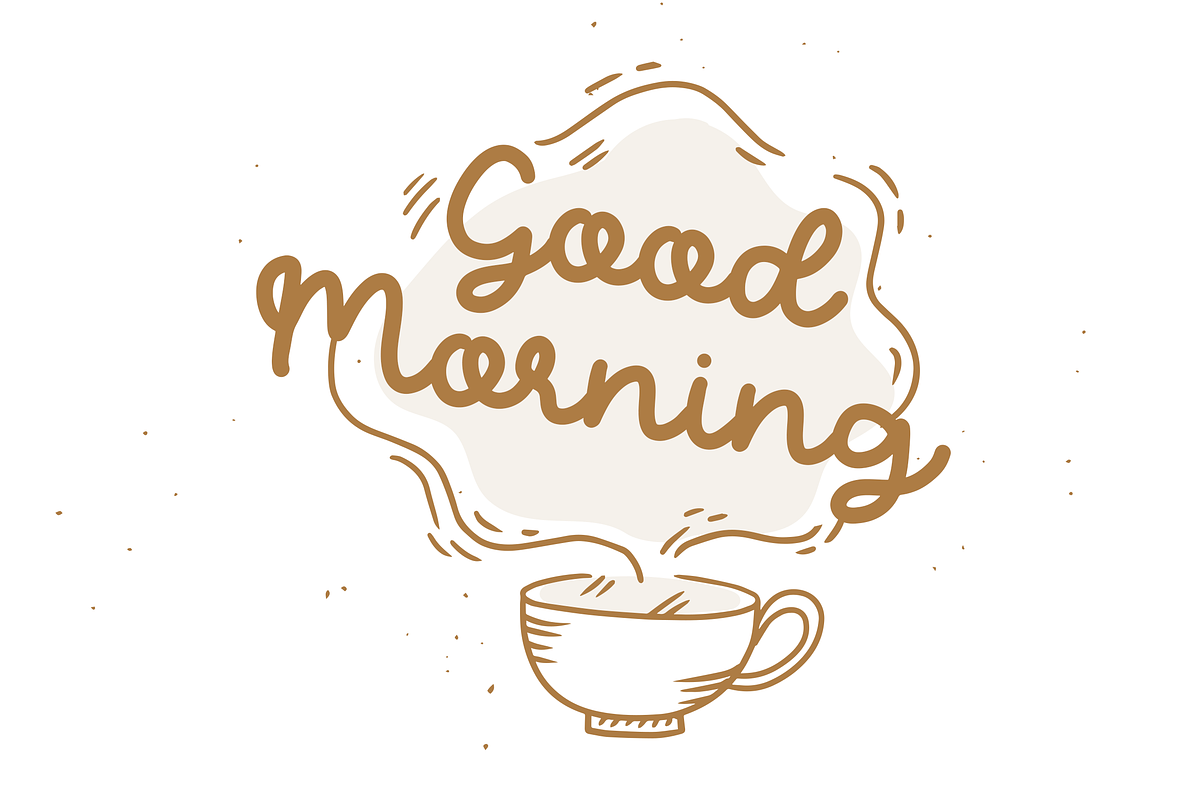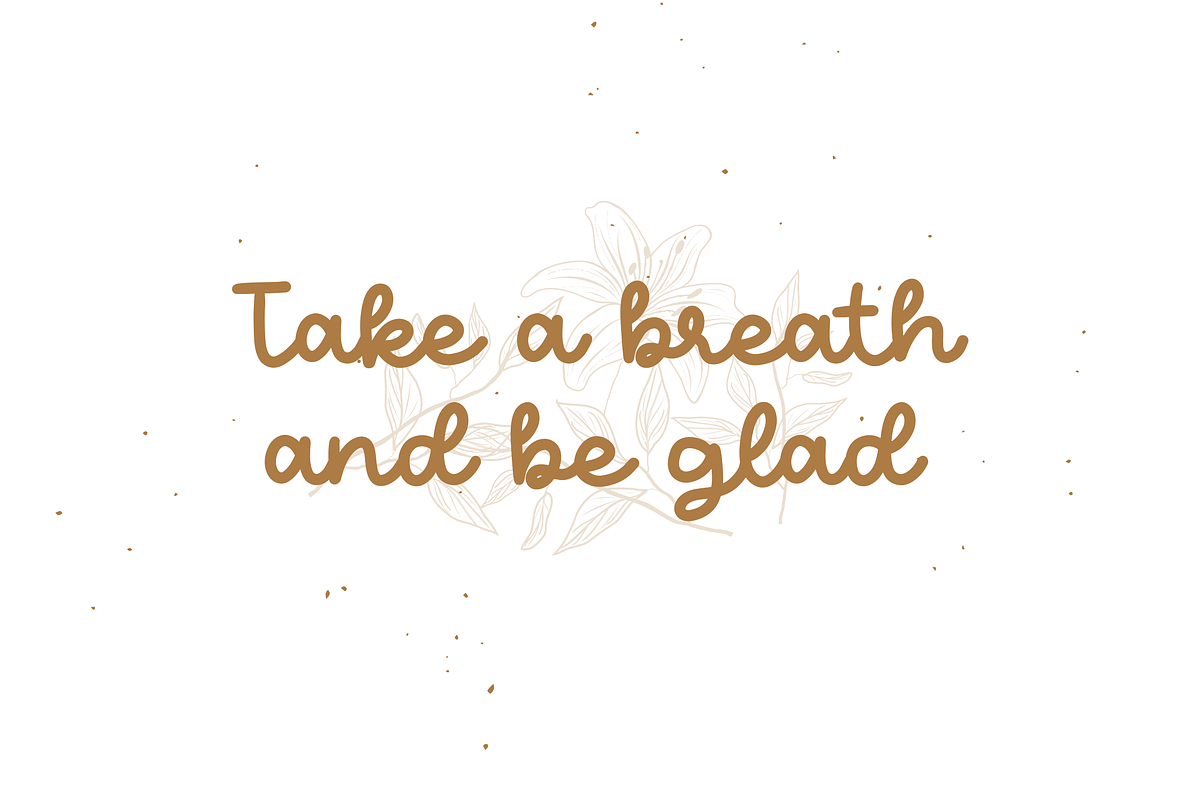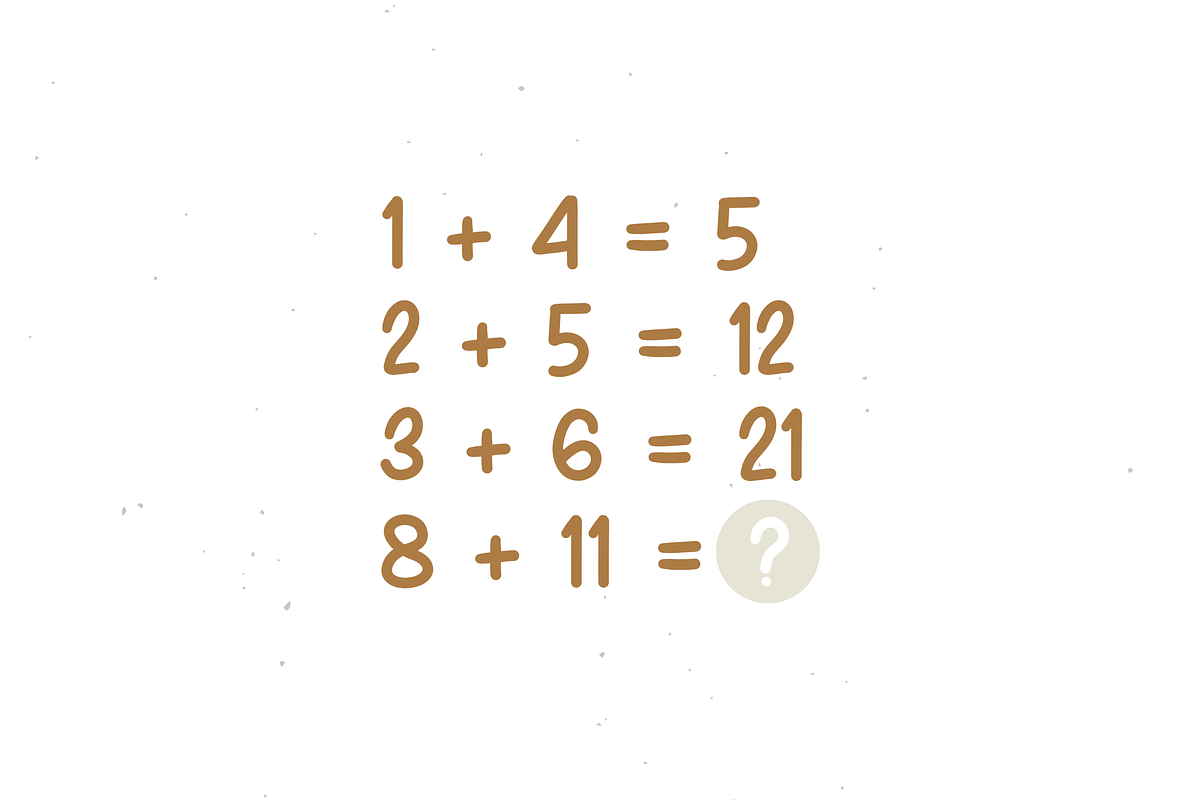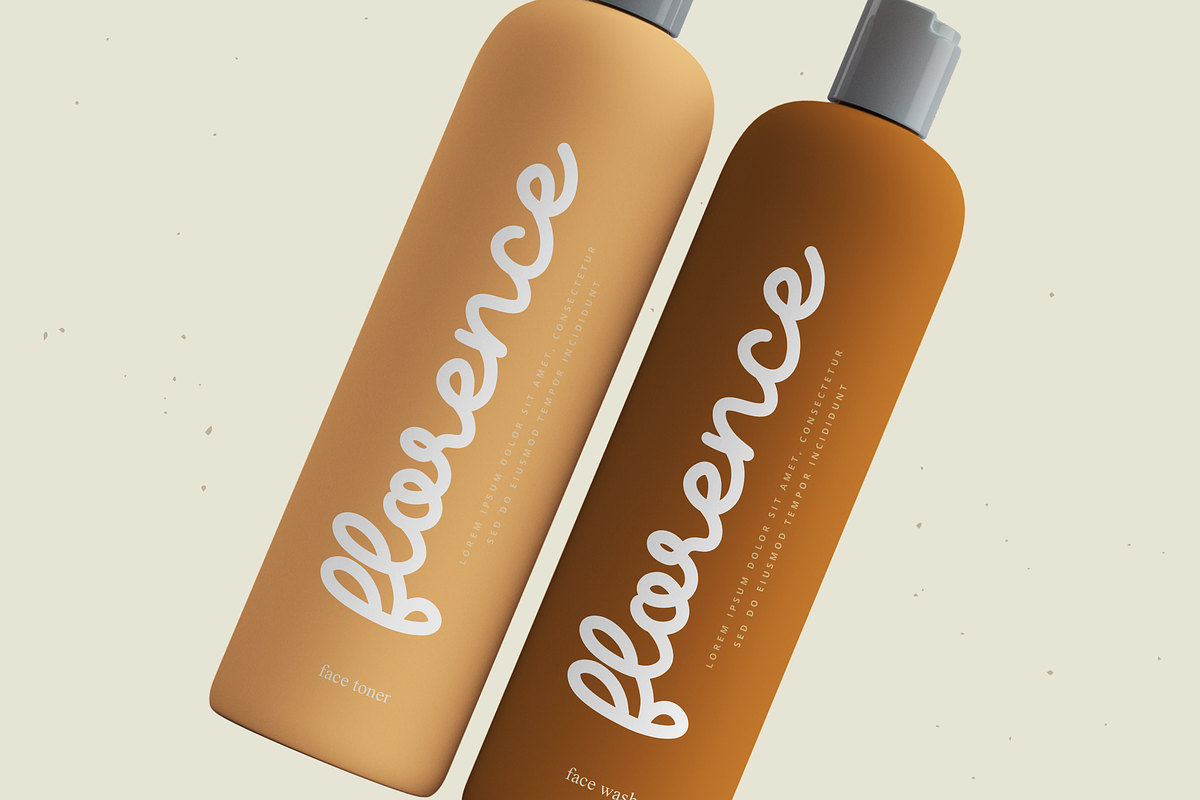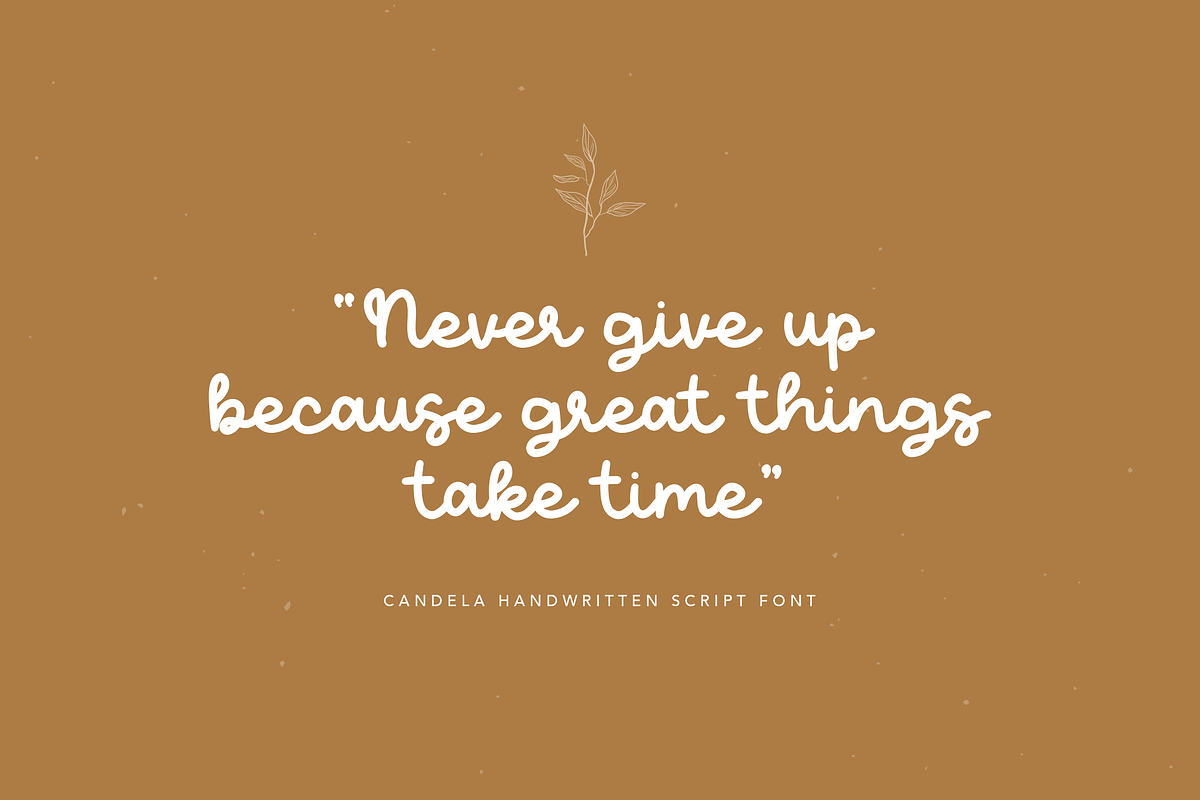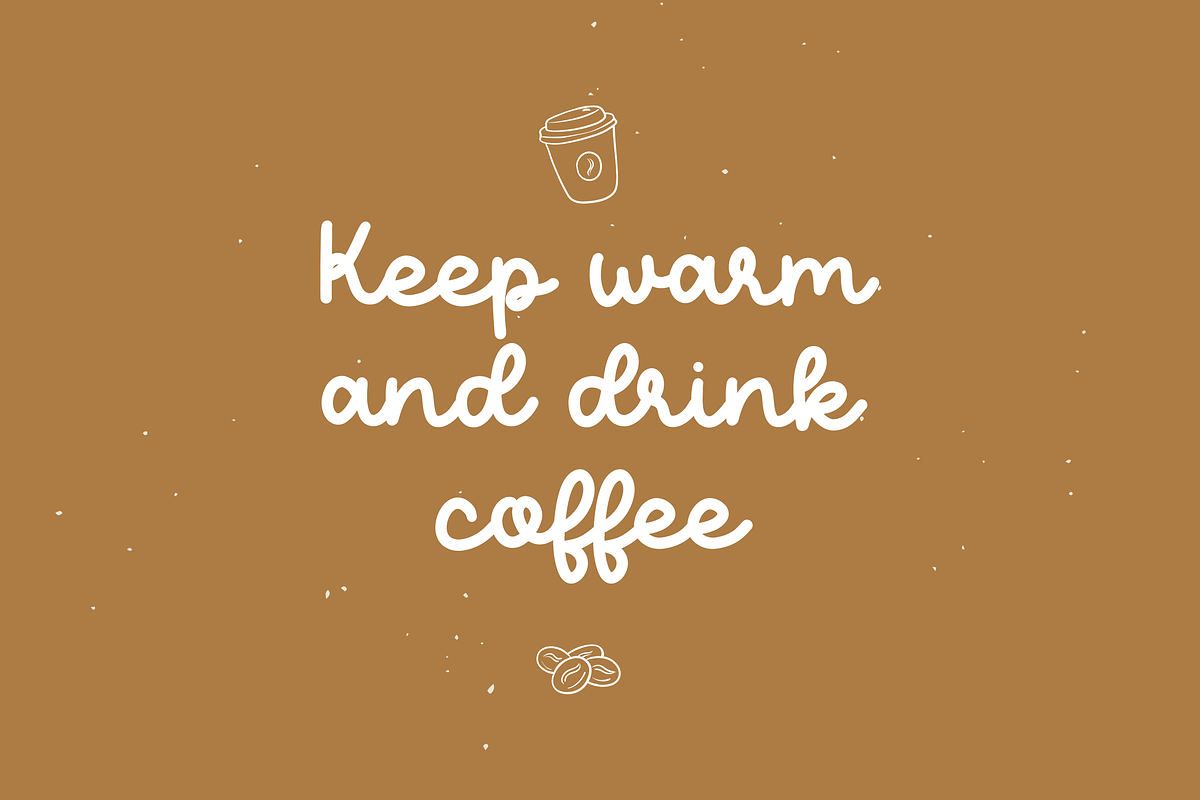
Candela Handwritten Font
Introducing our new font Candela Handwritten Script Font !!! ❤️
Candela is a soft and stylish handwritten font that is perfect for branding projects, logo, social media posts, advertisements, quoted text, signature, product packaging, product designs, label, photography, watermark, fashion, boutique, and any projects. It makes with a high level of legibility. It's also a perfect fit for a beauty-themed - or a stylish text overlay to any background image.
Uppercase & Lowercase letters
Numbering and Punctuation
- Uppercase & Lowercase letters
- Numbering and Punctuation
Candela Handwritten Font by peterdraw fits naturally into Branding, posters, packaging, typography.